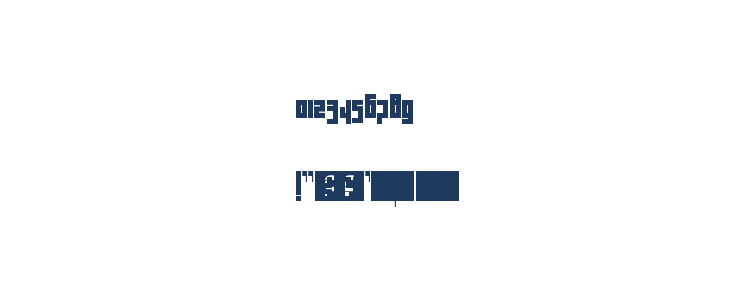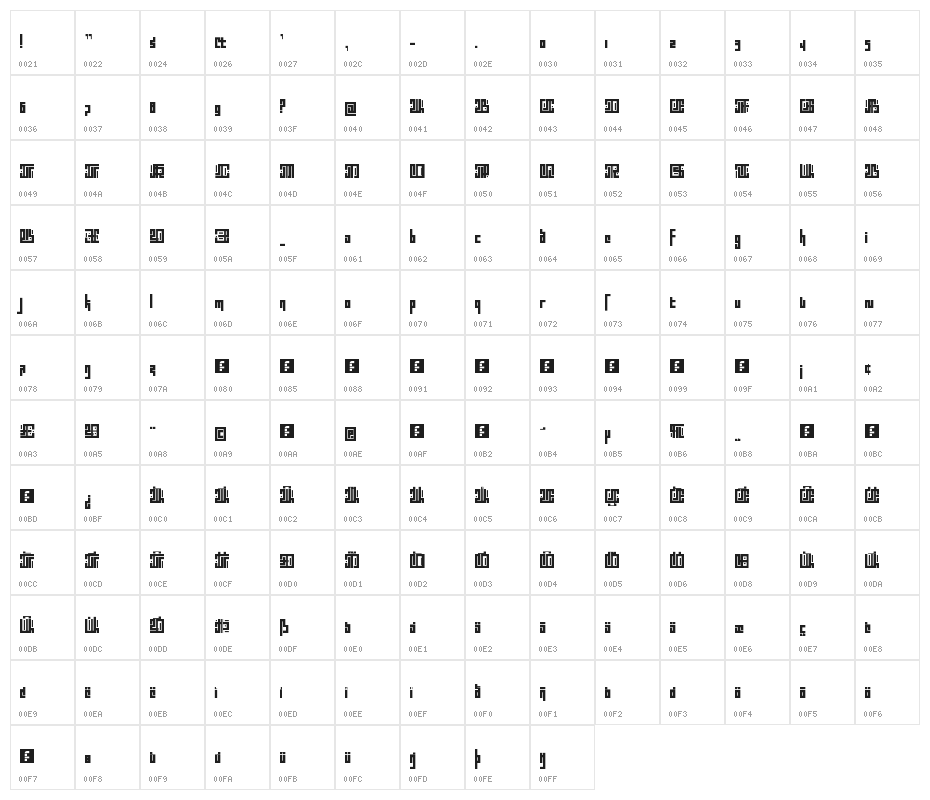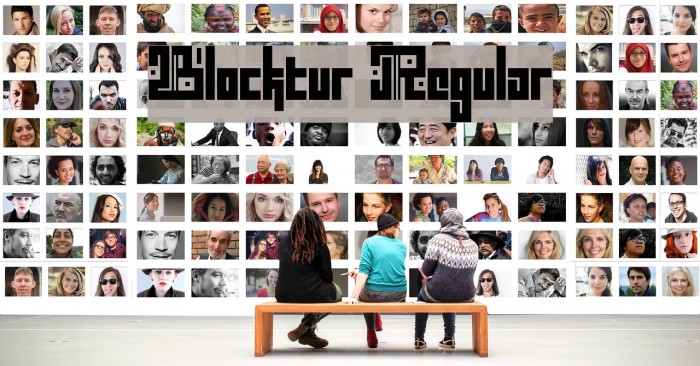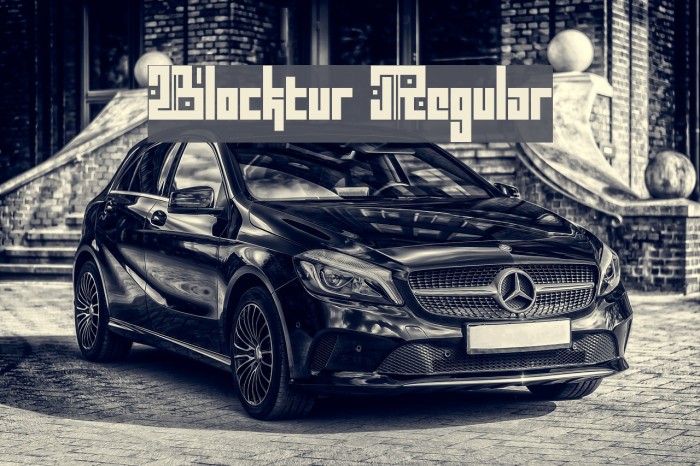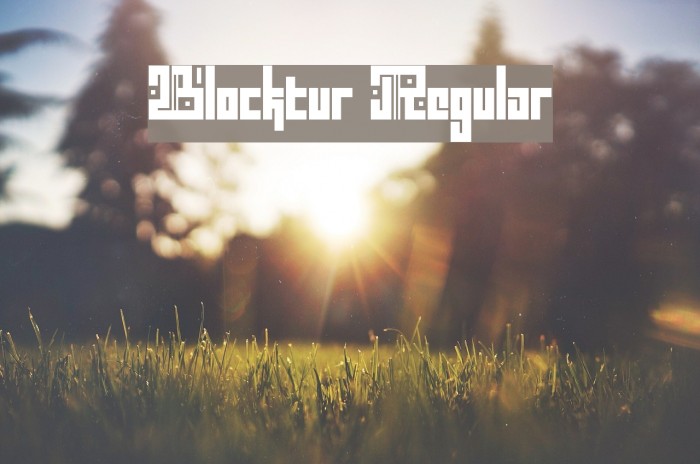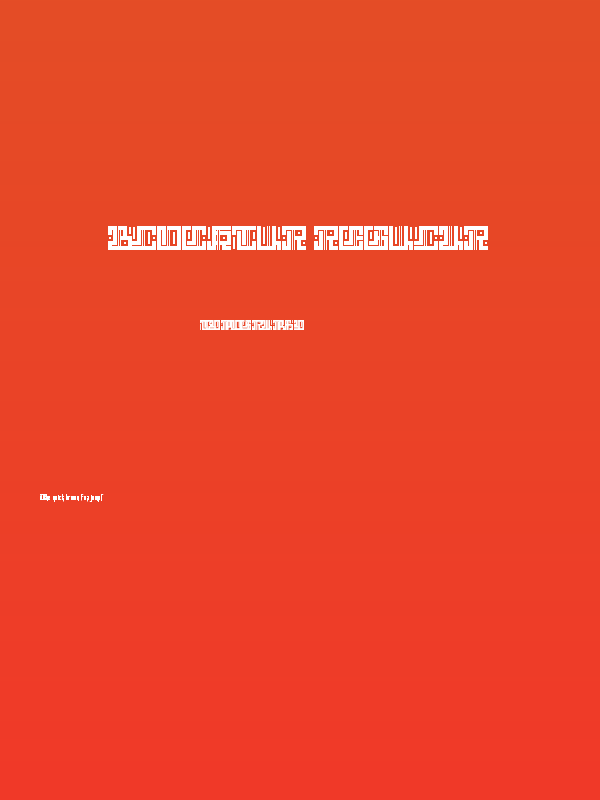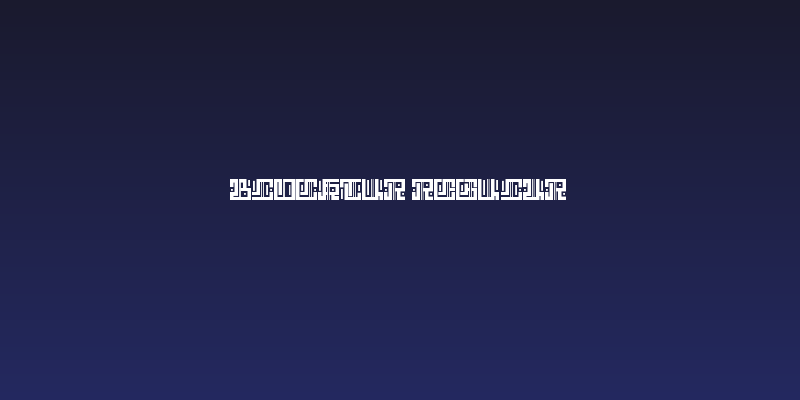
Blocktur Regular Font
Blocktur Regular Description
This font features a bold, geometric design with a strong emphasis on angular shapes and sharp edges. The characters are constructed with a blocky, almost futuristic style that gives it a unique and modern appearance. The uppercase and lowercase letters maintain a consistent height, contributing to a uniform look across the typeface. Numbers and special characters follow the same design principles, ensuring a cohesive visual identity. The font's distinct style makes it stand out, ideal for projects that require a bold statement.